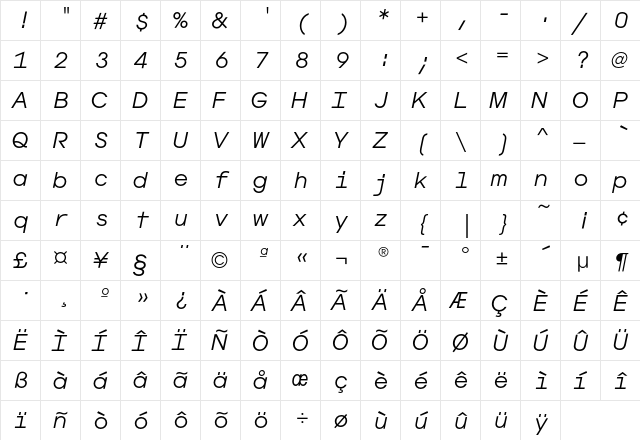
AvantGardeMonoEF LightIta Font Preview
AvantGardeMonoEF LightIta
Design Context for AvantGardeMonoEF Typeface
AvantGardeMonoEF brings the precise, column-aligned rhythm of monospaced typography to designs that value technical clarity and systematic order. The delicate stroke weight brings airiness and refinement to layouts.